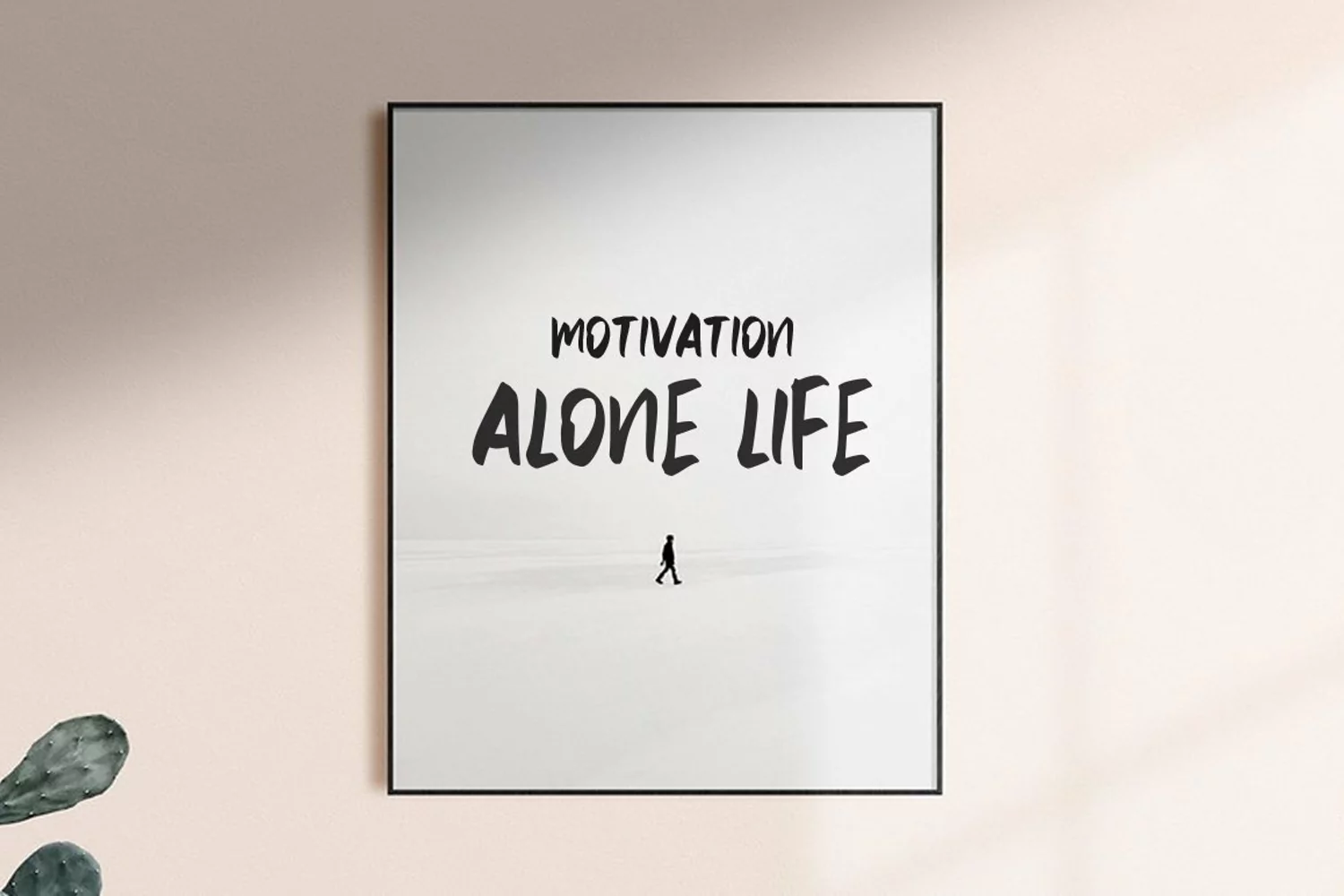
Wildom Font is beautiful with good flow and unique alternate font.
inspired by a sweet love contemporary handwriting fonts with ligatures and alternative styles ready to add unique look and bloom on your design